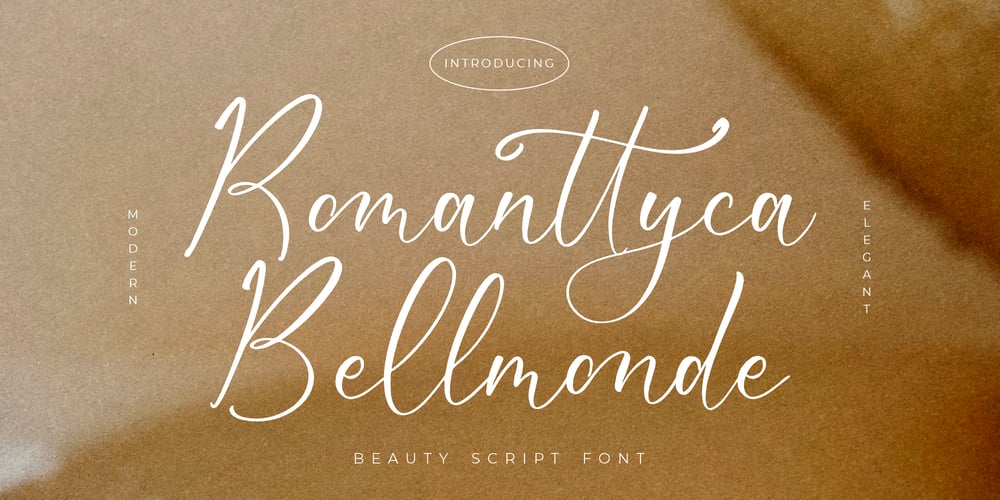
Romanttyca Bellmonde Font Family was designed by Heru Utama Putra and published by Letterena Studios. Romanttyca Bellmonde contains 2 styles and family package options. Romanttyca Bellmonde is a luxurious script font that has its own unique style and modern look. This typeface is perfect for an elegant & luxurious logo, book or movie title design, fashion brand, magazine, clothes, lettering, quotes, and so much more.